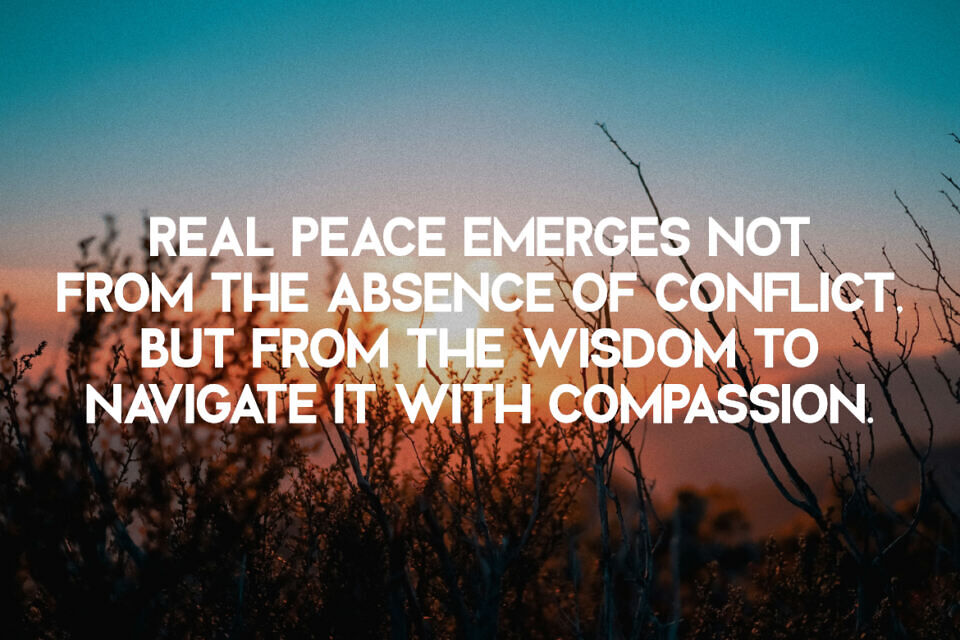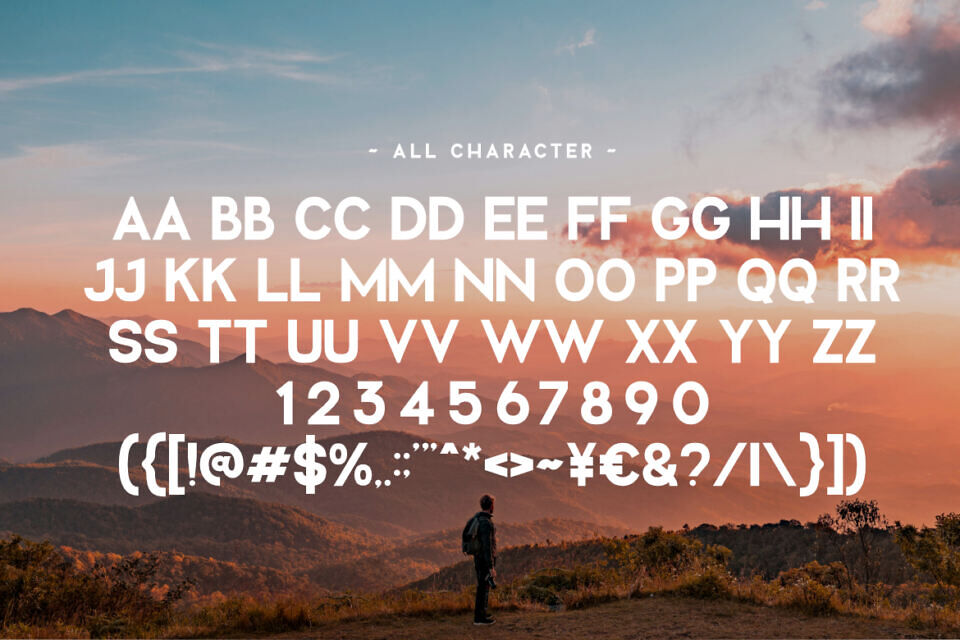
Peace Font
Peace is a modern sans-serif font designed for strong visual impact. Whether you’re working on branding, packaging, editorial layouts, or social media graphics, this font delivers clarity, style, and professional aesthetics.
Crafted with precision and clean shapes, Peace is ideal for logos, posters, headlines, and other creative projects where typography takes center stage. It pairs well with minimalist or bold design directions.
Designed by: Almairatype